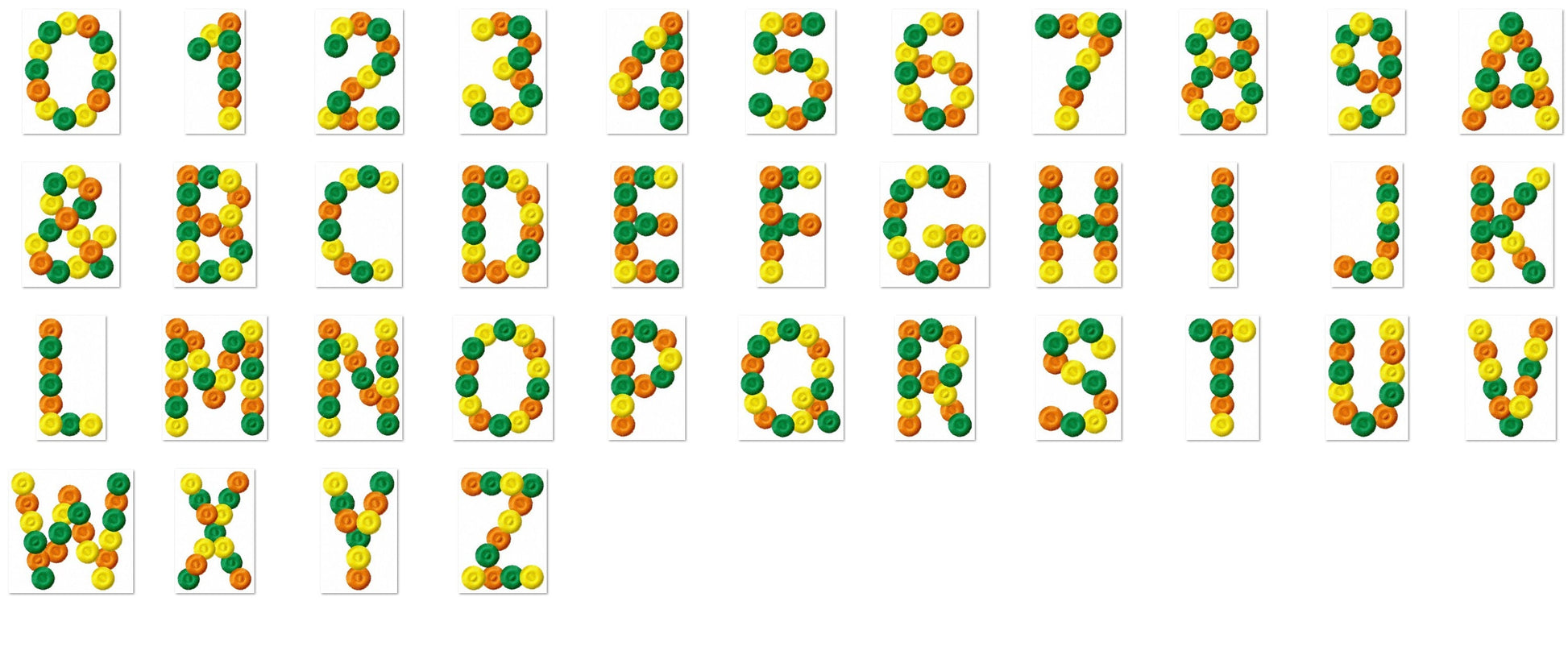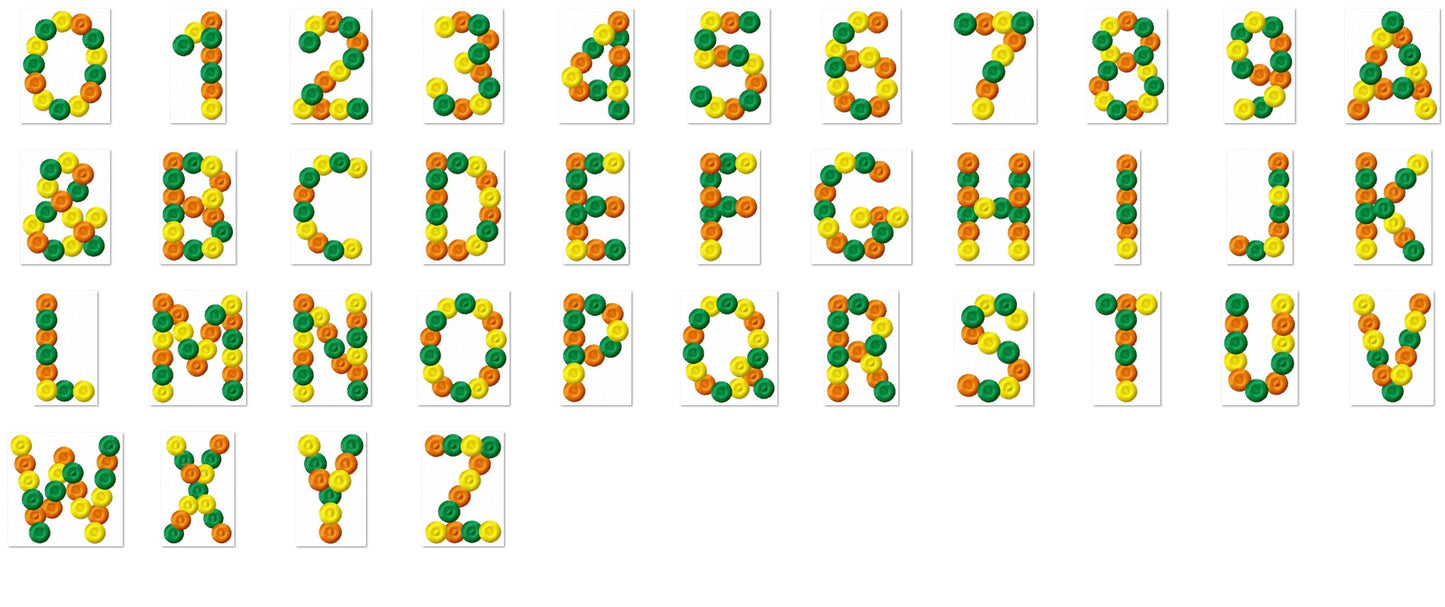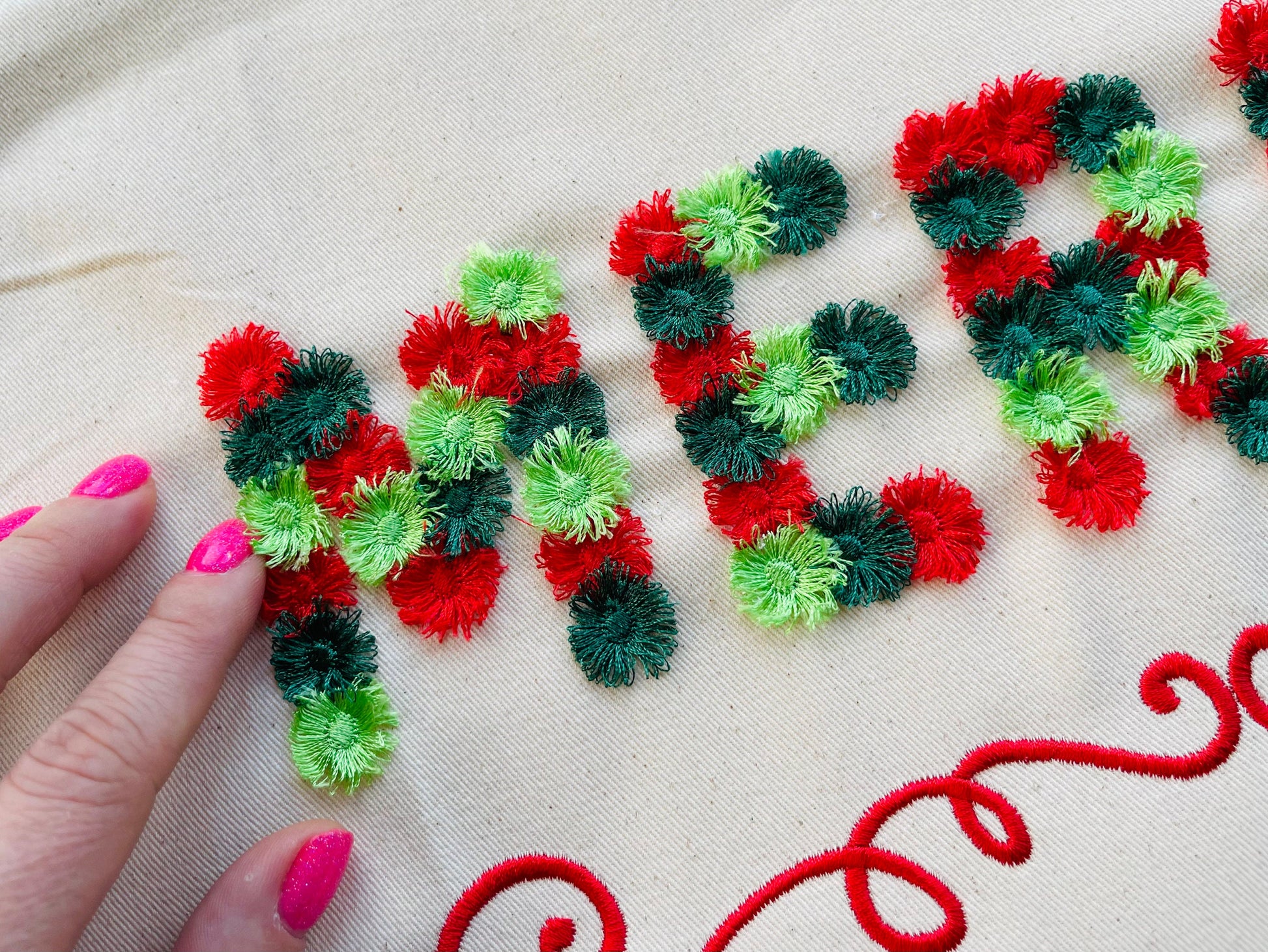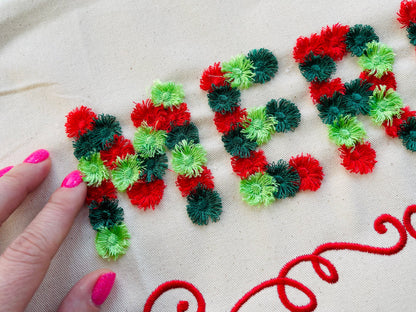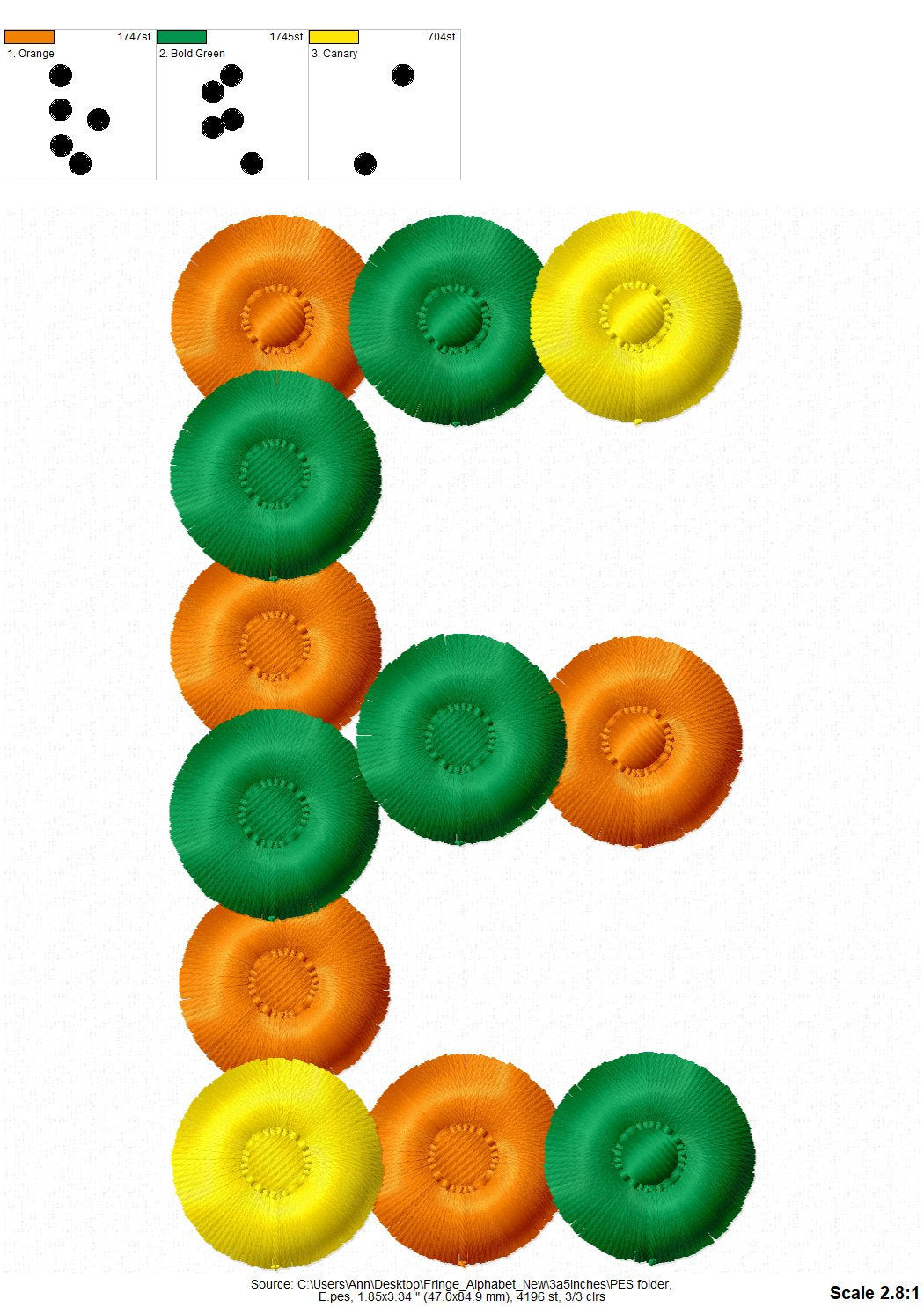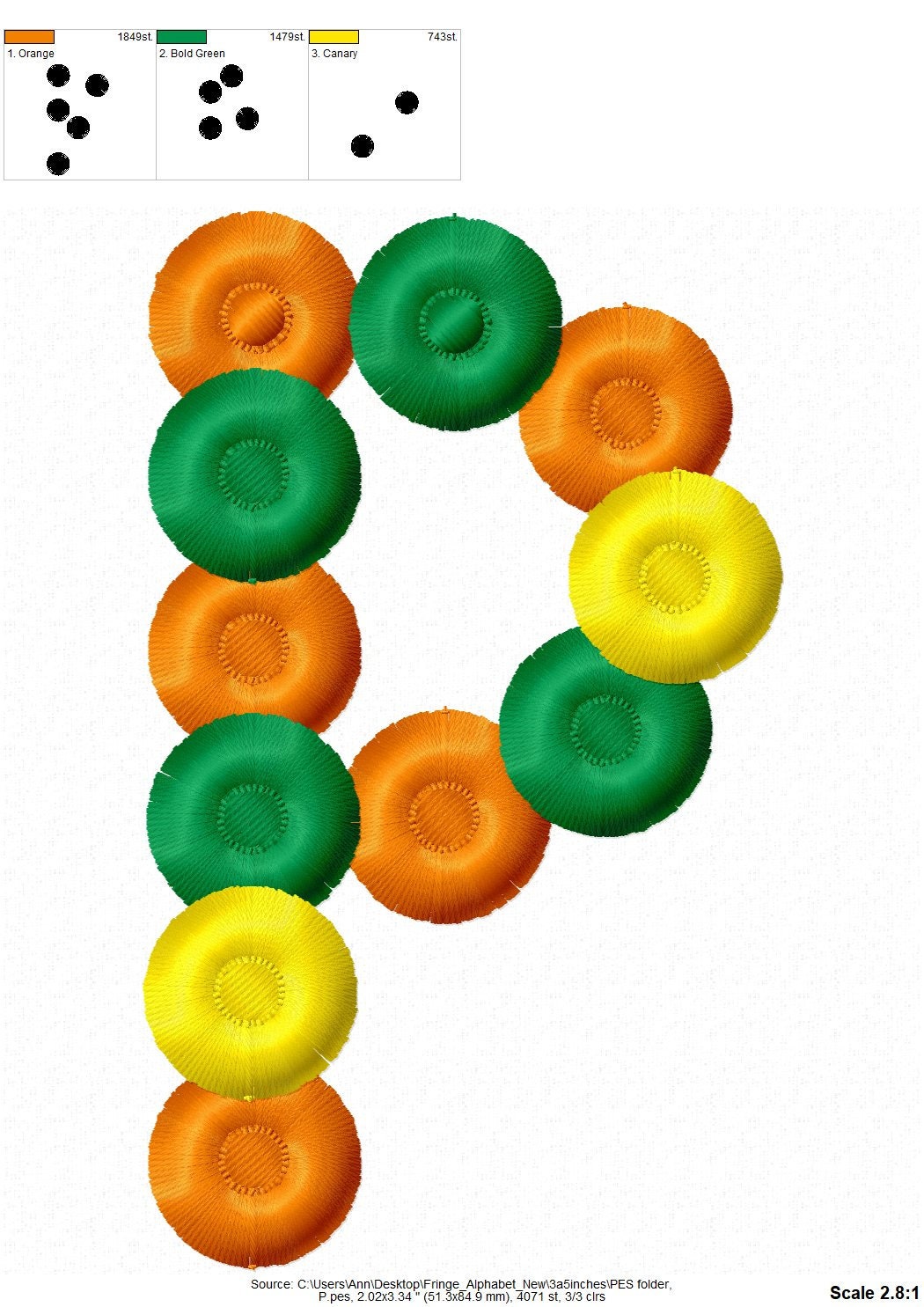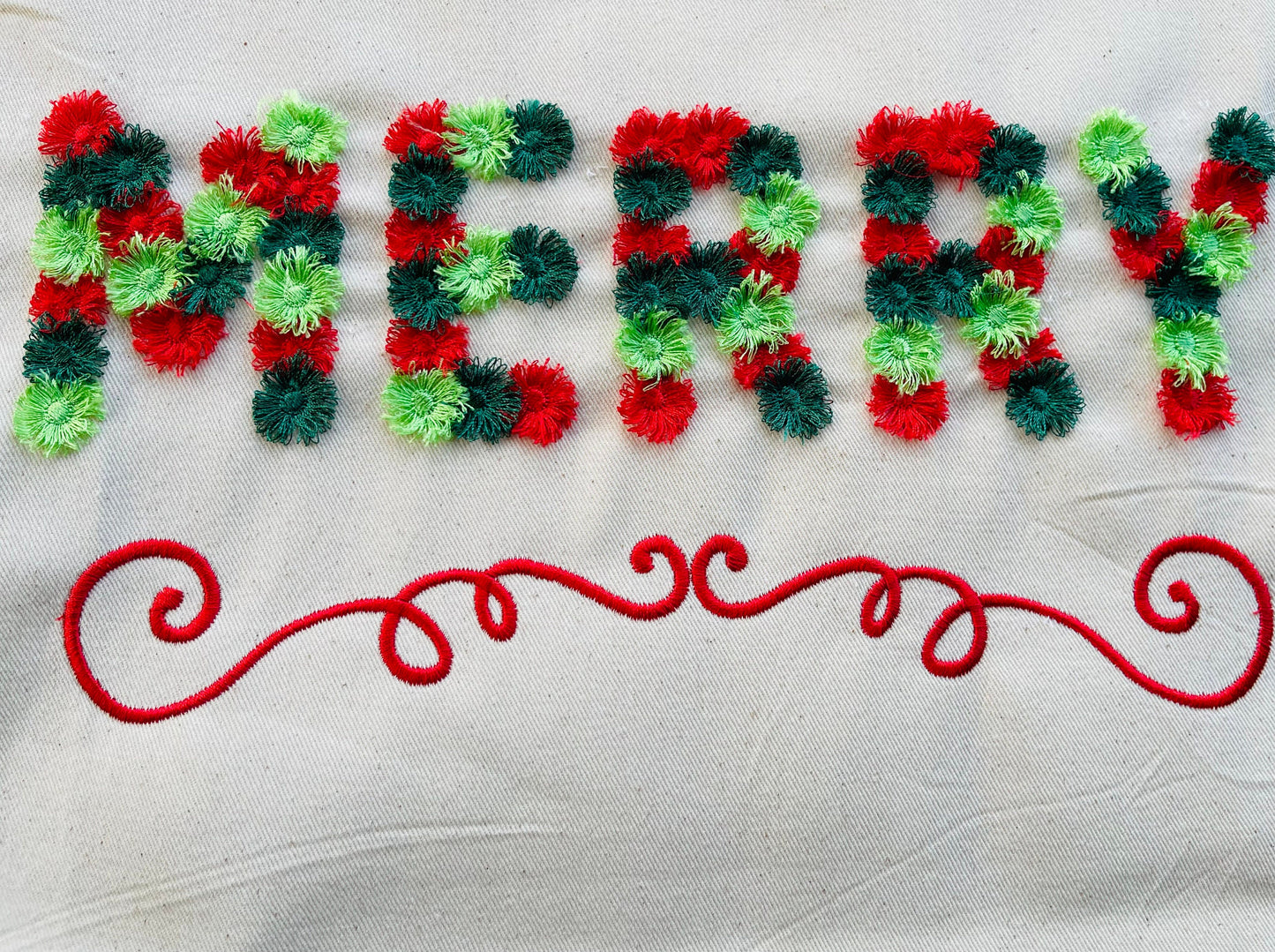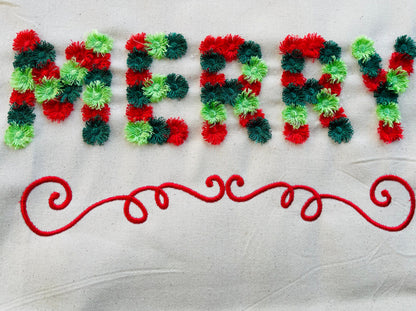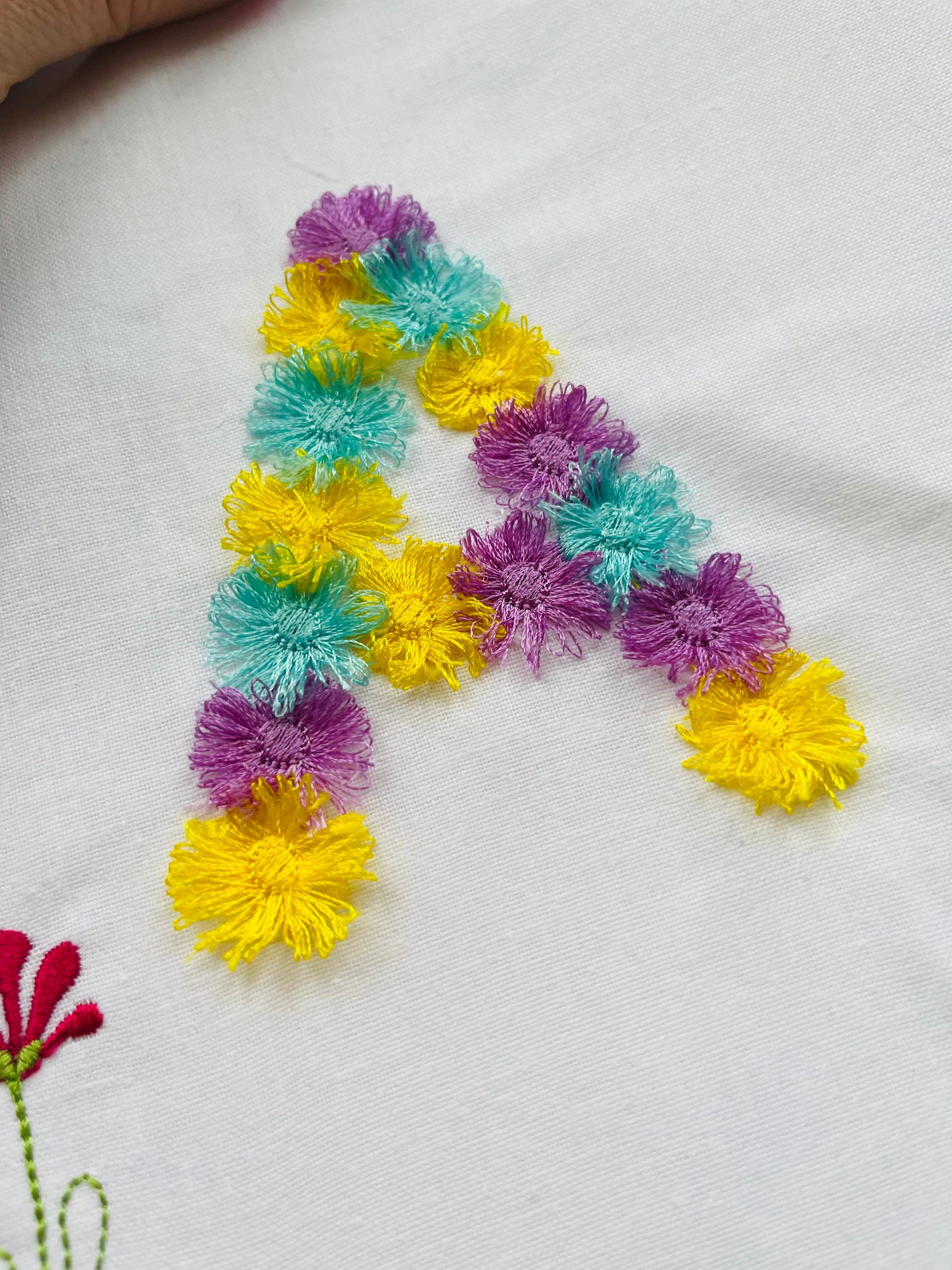
Or click to open the linkAn extra fluffy fringed circle font, for pretty kids' names and monograms on shirts, pillows and bags.
A special seam holds the fringe, so it is safe to wash; add one extra layer of firm stabilizer. Uppercase A to Z, numbers 0 to 9 and an ampersand in five sizes: 2, 2.5, 3, 3.5 and 4 inches.